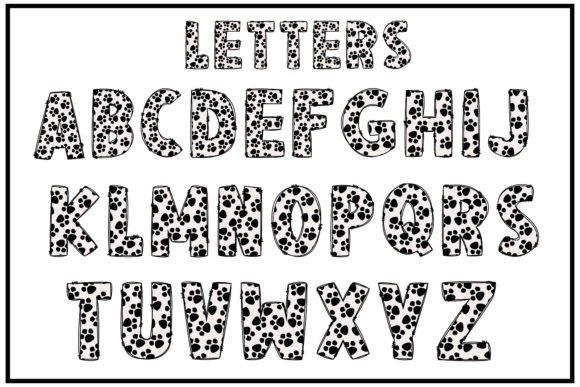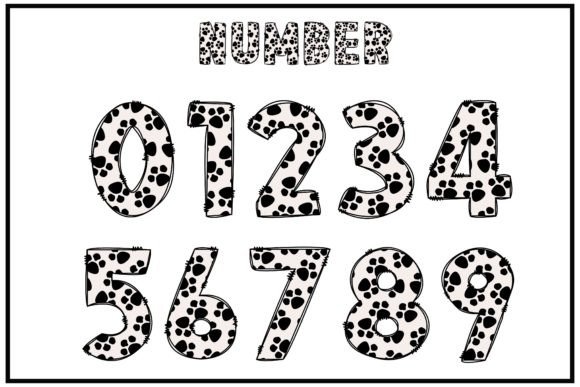
Discover the Adorable Dog Feet Font: A Paw-fect Choice for Dog Lovers
Are you a designer, crafty enthusiast, or simply a dog lover looking for a unique and playful font to add a personal touch to your projects? Look no further than the Dog Feet Font, a sweet and adorable color font that embodies the spirit of playfulness and authenticity. In this article, we’ll dive into the world of Dog Feet Font, exploring its features, benefits, and uses, as well as provide tips and inspiration for incorporating it into your designs.
What is Dog Feet Font?
Dog Feet Font is a one-of-a-kind color font that captures the hearts of dog lovers everywhere. Its playful and charming design makes it an ideal choice for a wide range of projects, from dog-themed crafts and decorations to social media graphics and marketing materials. With its adorable and whimsical style, Dog Feet Font adds a touch of personality and fun to any design.
Key Features of Dog Feet Font
- Playful and Adorable Design: Dog Feet Font boasts a unique and captivating design that is sure to delight dog lovers of all ages.
- Color Font: This font comes in a range of colors, allowing you to add an extra pop of personality to your designs.
- Authentic and Whimsical: Dog Feet Font embodies the spirit of playfulness and authenticity, making it perfect for projects that require a personal touch.
- Easy to Use: This font is compatible with a range of design software, making it easy to incorporate into your projects.
Benefits of Using Dog Feet Font
So, why choose Dog Feet Font for your next project? Here are just a few benefits of using this adorable color font:
- Adds Personality to Your Designs: Dog Feet Font brings a unique and playful touch to your designs, setting them apart from the rest.
- Perfect for Dog-Themed Projects: Whether you’re creating a dog-themed craft, social media graphic, or marketing material, Dog Feet Font is the paw-fect choice.
- Easy to Pair with Other Fonts: This font pairs well with a range of other fonts, allowing you to create a unique and visually appealing design.
Using Dog Feet Font in Your Designs
Now that you’re familiar with Dog Feet Font, let’s explore some ways to incorporate it into your designs:
- Dog-Themed Crafts: Add a personal touch to your dog-themed crafts, such as dog tags, collars, and leashes.
- Social Media Graphics: Use Dog Feet Font to create eye-catching social media graphics, such as dog-themed memes, posters, and flyers.
- Marketing Materials: Add a playful touch to your marketing materials, such as dog food packaging, pet store promotions, and animal shelter campaigns.
To get the most out of Dog Feet Font, here are a few tips and inspiration to keep in mind:
- Experiment with Colors: Try pairing Dog Feet Font with different colors and textures to create a unique and visually appealing design.
- Mix and Match Fonts: Combine Dog Feet Font with other fonts to create a distinctive and eye-catching design.
- Have Fun: Most importantly, have fun with Dog Feet Font! Its playful and adorable design is sure to bring a smile to your face and inspire your creativity.
In conclusion, Dog Feet Font is a sweet and adorable color font that embodies playfulness and authenticity, making it the perfect choice for any project dedicated to dog lovers. With its unique and captivating design, easy-to-use format, and range of benefits, Dog Feet Font is sure to delight designers, crafty enthusiasts, and dog lovers alike. So why not give it a try and see how this paw-some font can add a personal touch to your next project?